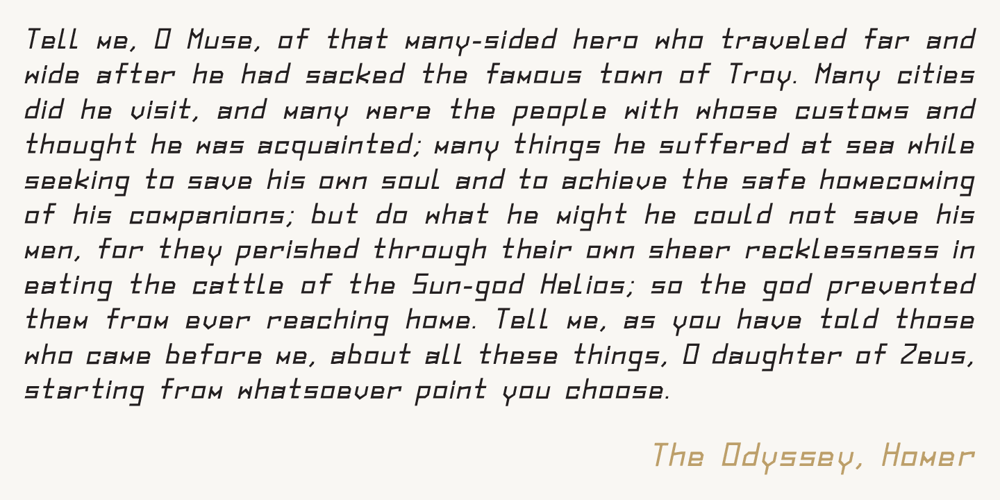
Originator
Originator font
Originator Font Family was designed by Thoma Kikis and published by TEKNIKE. Originator contains 12 styles and family package options. Originator is a display modular monospace font. The typeface has a distinct technical geometry using sharp angled corners. “Originator” name is derived from Latin and means ‘one who first creates or initiates something into existence.’ Originator is recommended for display work, branding, logos, technical writing, team sports, aerospace, aviation, automotive, racing, fashion, cinema, architecture, invitations, posters and headings.